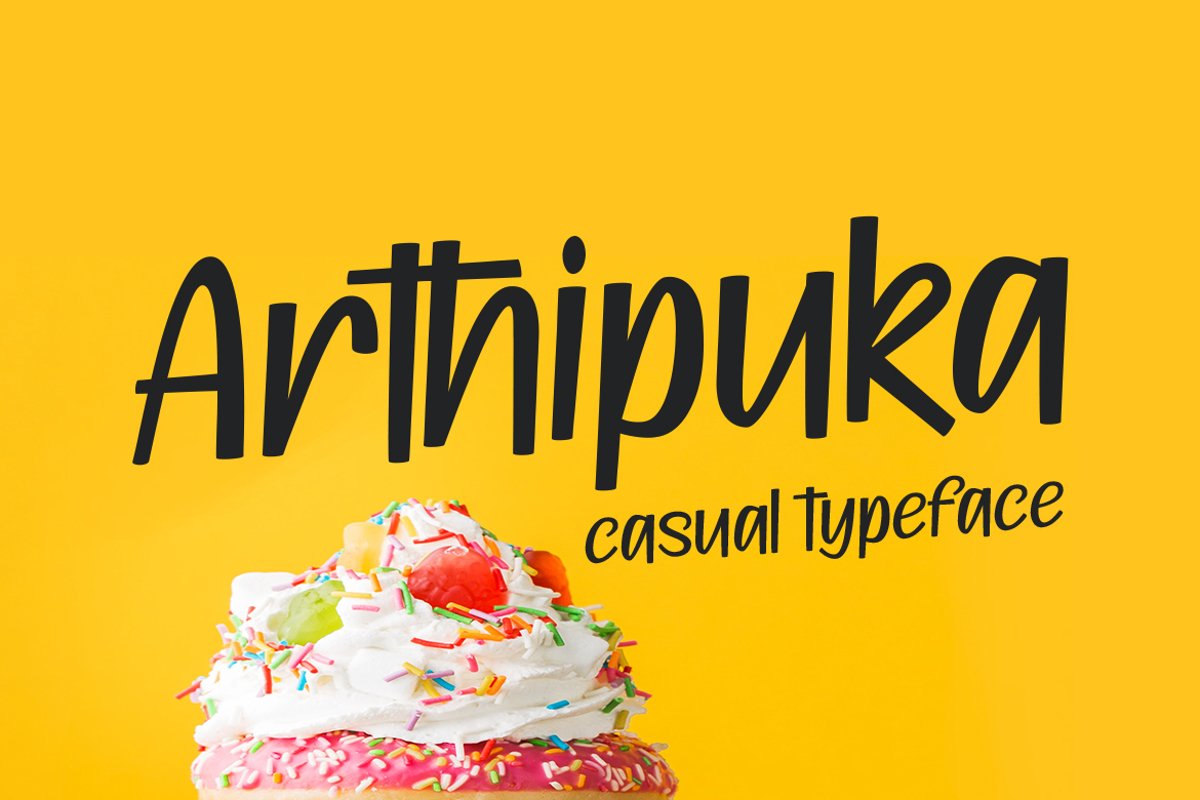
Arthipuka
A casual handcrafted typeface with fun and childish style, this is Arthipuka. Presented to you with complete uppercase, lowercase, number, punctuation, and also support multi language. Arthipuka is great for comic, kids project, or anything that needs casual feels.WHAT'S INCLUDES: